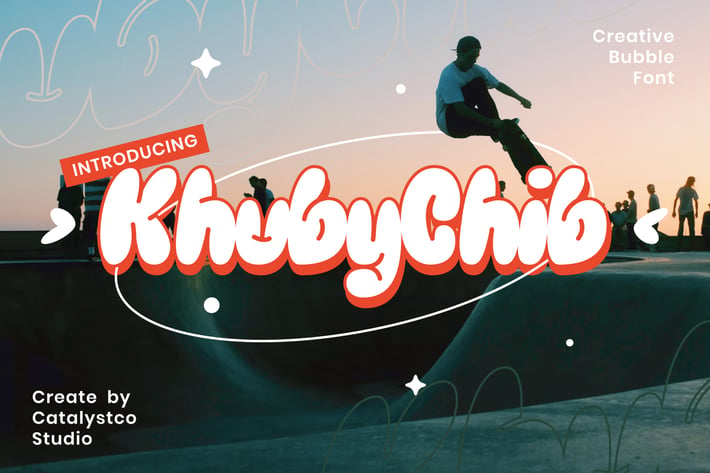
KhubyChib Creative Bubble Font
KhubyChib is a bold and playful bubble font designed with chunky rounded shapes and a soft, cheerful personality. Its smooth curves and inflated letter construction create a fun, friendly vibe that works perfectly for children’s themes, creative branding, and joyful visual storytelling. With a unique bubble-graffiti style, KhubyChib stands out as a lively and modern display font.
This typeface is ideal for kids' posters, fun logos, product packaging, cartoon titles, event flyers, social media graphics, sticker designs, and any playful creative project. Complete with uppercase, lowercase, numbers, and symbols, KhubyChib offers designers a versatile and delightful bubble font that instantly adds charm and excitement to any design.
Suitable for kids’ branding, playful logo design, cartoon titles, graffiti-theme artwork, event posters, sticker packs, packaging for toys or snacks, social media content, birthday invitations, and any design project that needs a bold, soft, and cheerful bubble typeface.
Ligatures & Alternate
Numeral & Punctuations